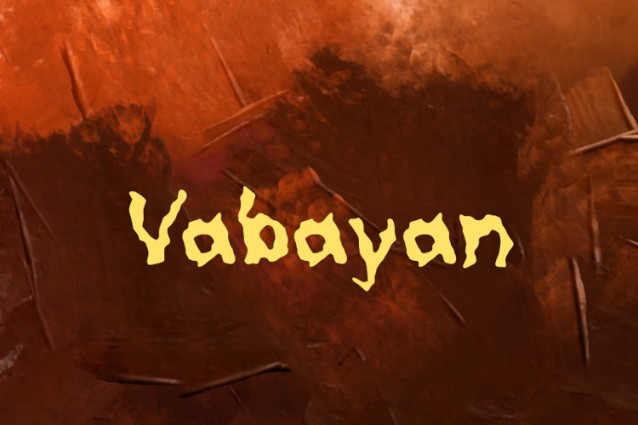
Vabayan Font
Vabayan Font, it would be a perfect choice to design posters, affiches, logos, t-shirt and magazine prints, eye-pleasing typographic designs and more.